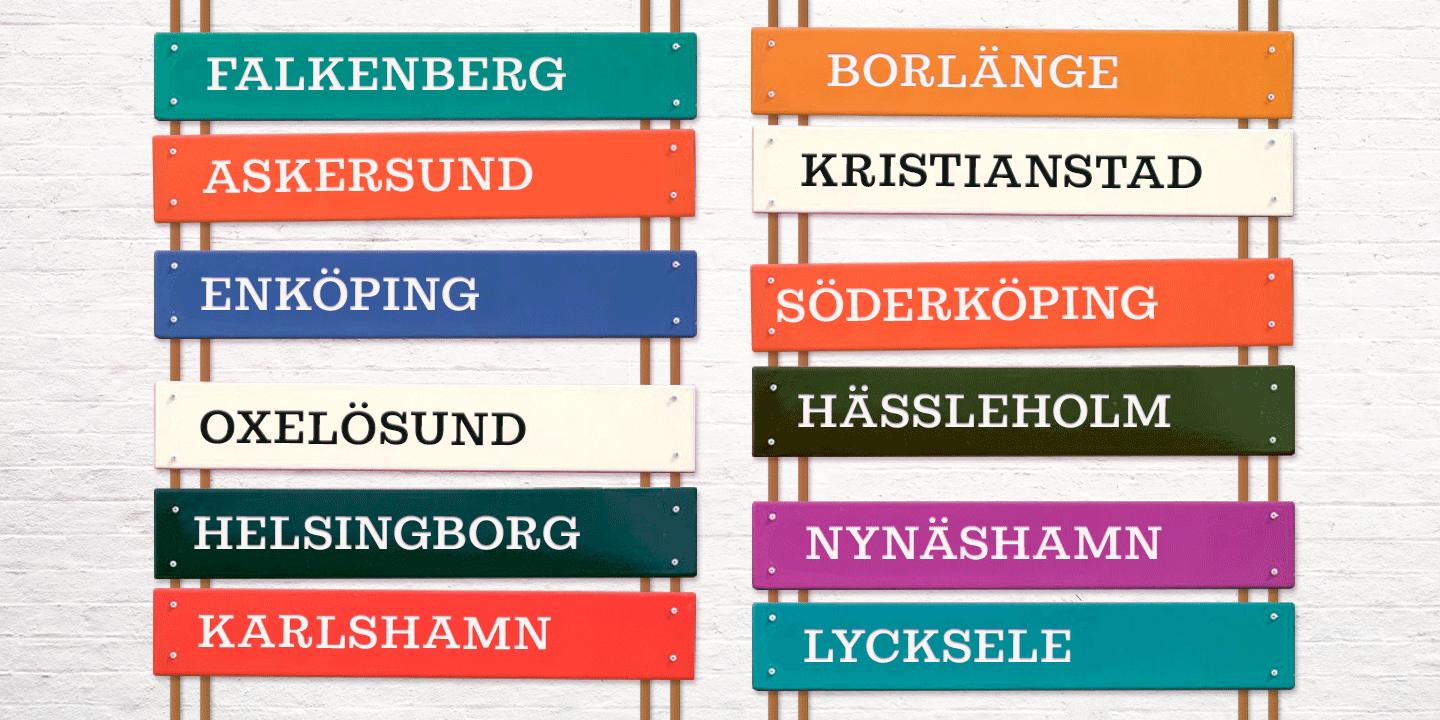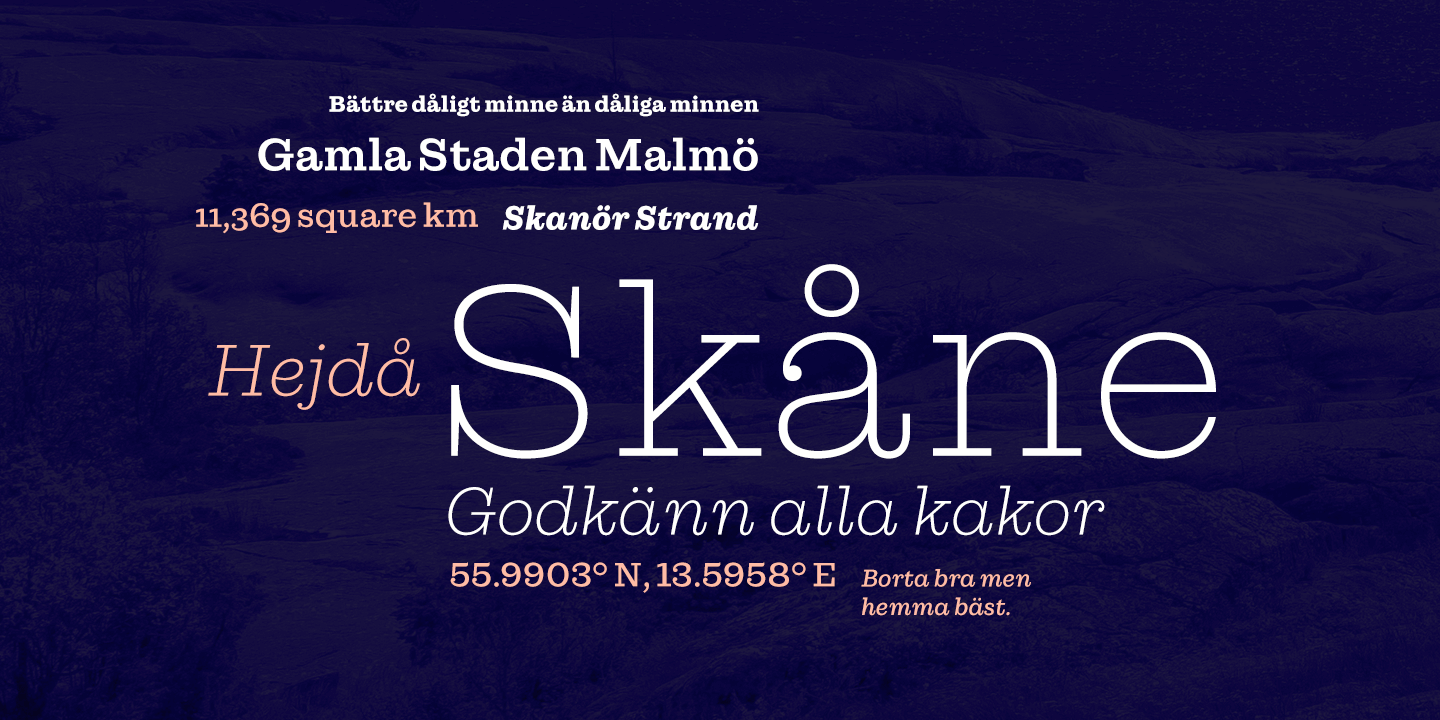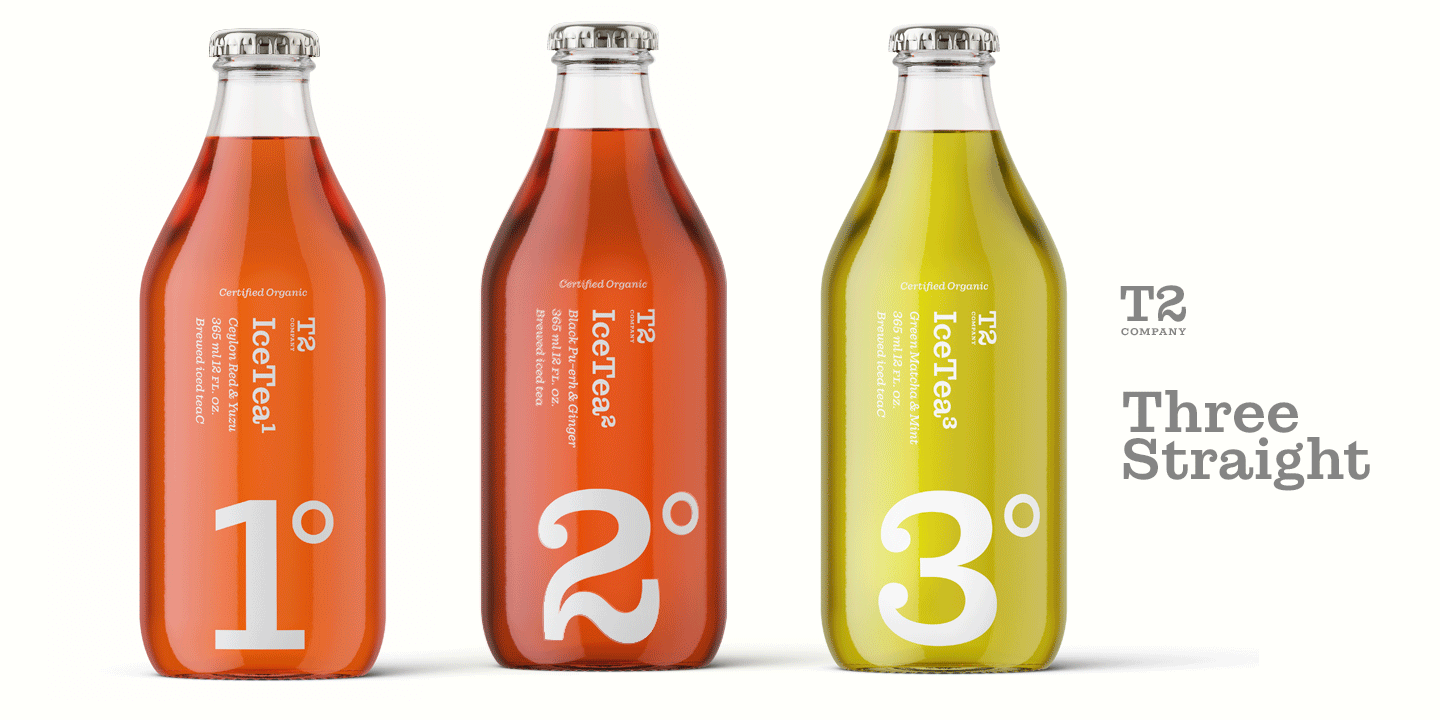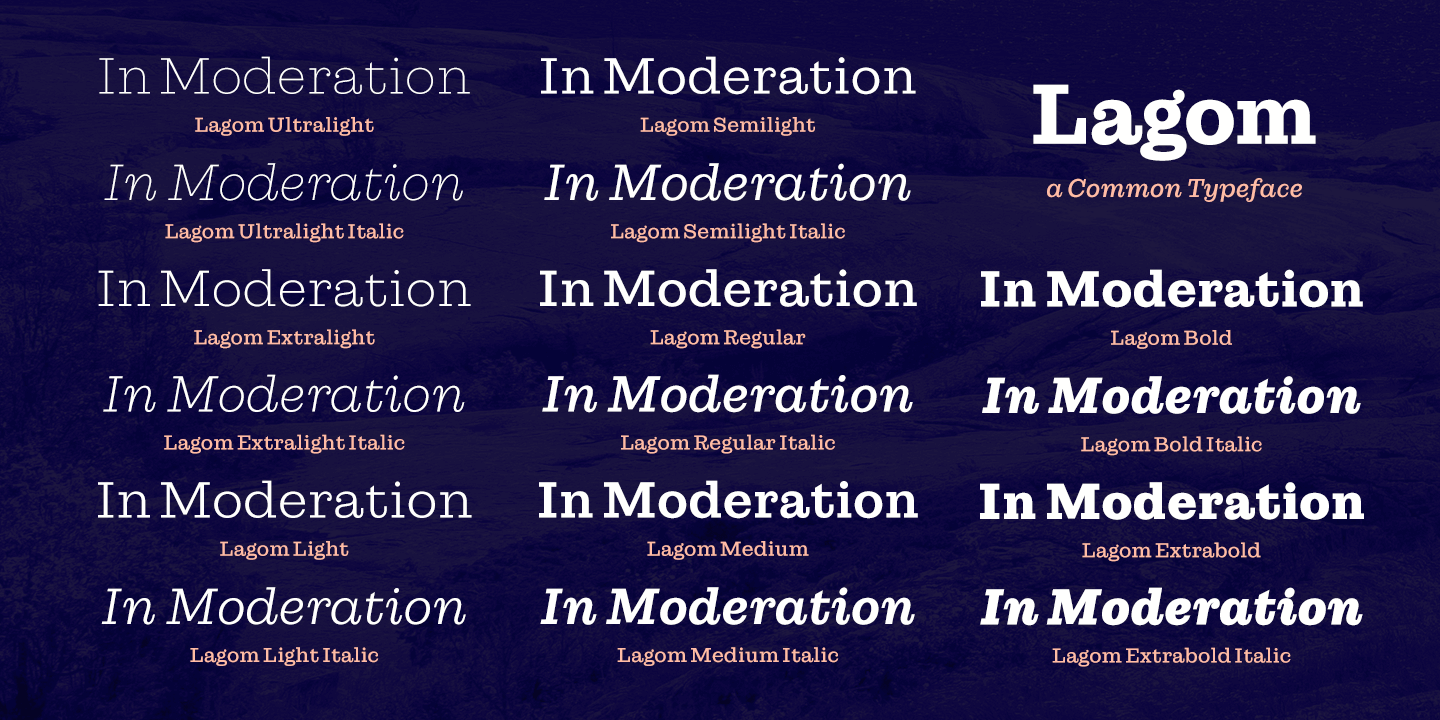
Do you find some of the contemporary fonts just a tad too cool, restrained ? even arrogant in their appearance? Here\’s something to charm your worried clients with ? Lagom, a polite and diplomatic type family. Use Lagom and you\’ll be able to reach just…